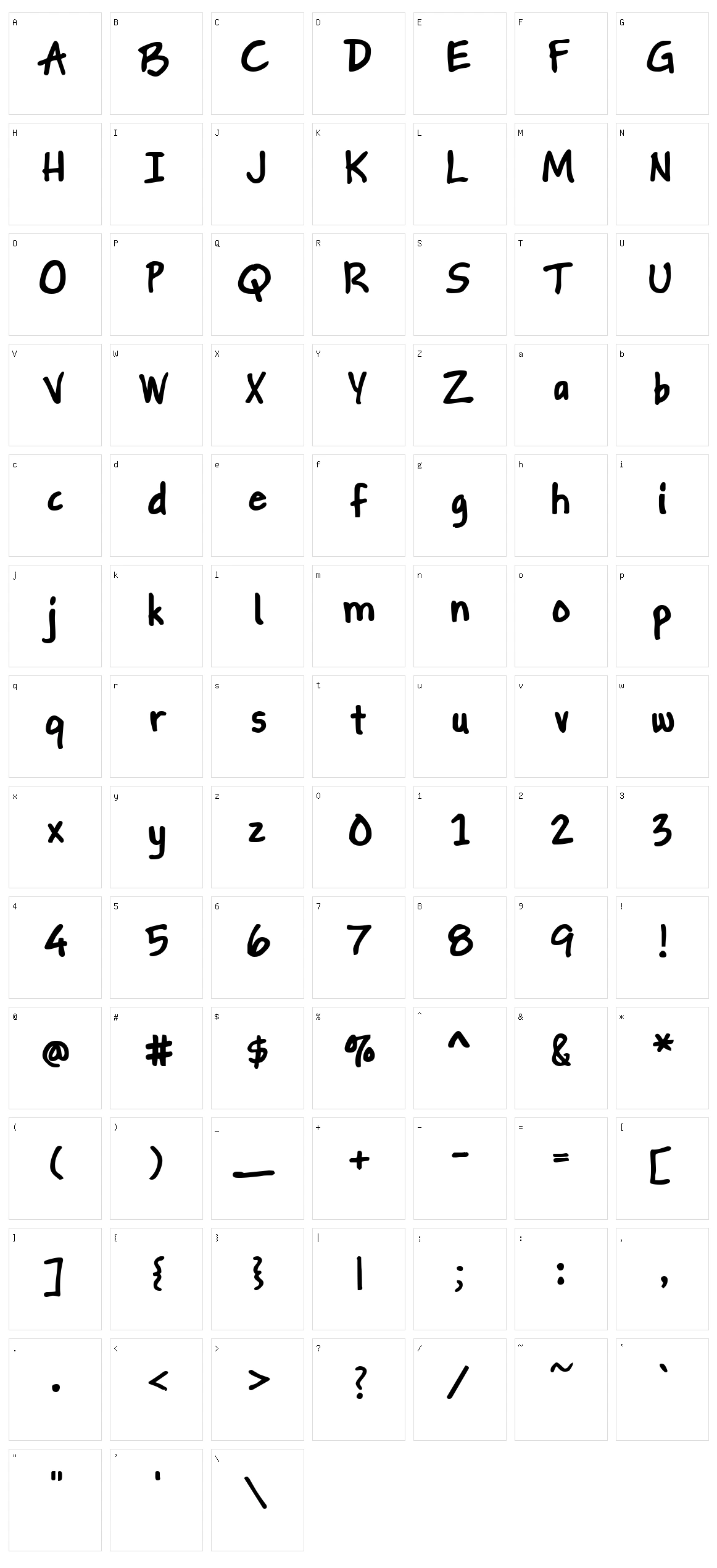
Gapstown AH
A handwriting font with informal but not too irregular characters, for those who are kind of tired of the standard hand printing fonts supplied by Creative Suites and commercial operating systems, the ones you see everywhere. These are fairly unknown faces and a good alternative.
Gapstown comes in two weights, standard and bold, and in two variants: Gapstown and Gapstown Small. The latter has wider letterspacing for smaller print sizes. Test for yourself which ones to use at what size. All four are free fonts. You may use them or share them, but sharing on web sites is permitted under the following conditions only: